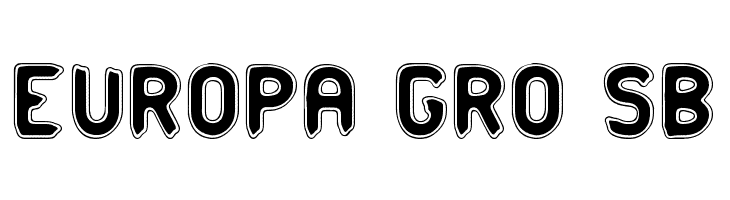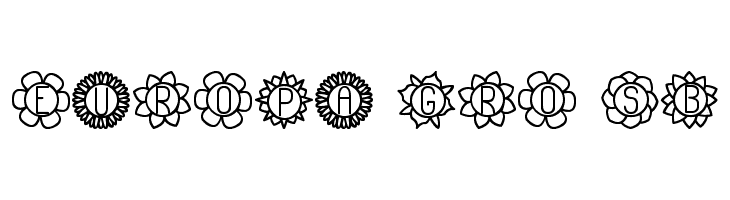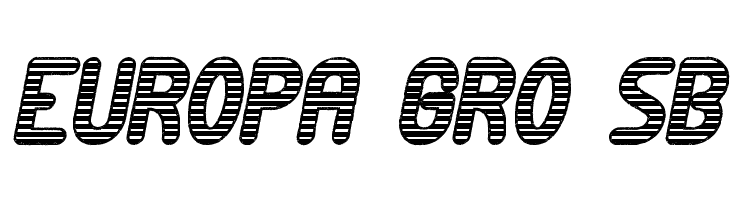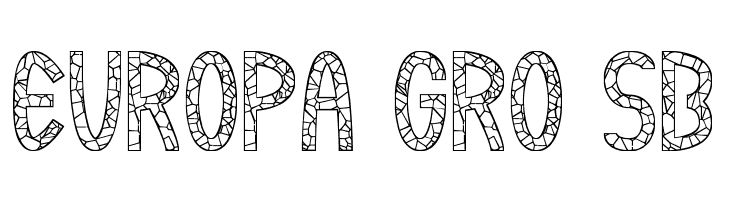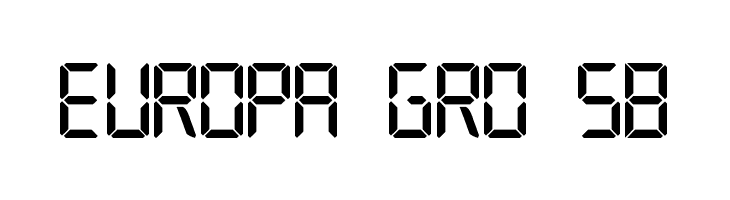
A bold, playful font with a thick outline and rounded characters.
A decorative font with geometric letters enclosed in ornate diamond shapes.
A decorative font with letters encased in intricate floral patterns.
A bold, geometric font with characters enclosed in circles, connected by lines.
A bold, decorative font with a unique horizontal striped pattern.
A decorative font with a mosaic pattern, offering a bold and artistic style.
A bold, hand-drawn font with textured, sketch-like characters.
A digital, segmented font inspired by classic LED displays.
A futuristic, segmented font with a digital, tech-inspired design.
A pixelated, italic font with a digital, futuristic style.